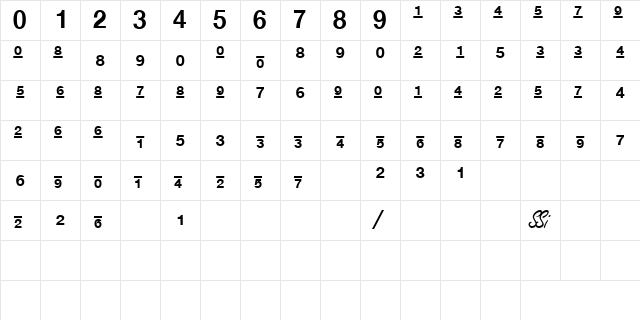
ContextFractionsSSK Bold Free Font
ContextFractionsSSK Bold
Design Context for ContextFractionsSSK
ContextFractionsSSK is a composed and adaptable typeface that performs quietly and consistently across a wide range of design contexts. Its bold stroke weight gives it real presence on the page.